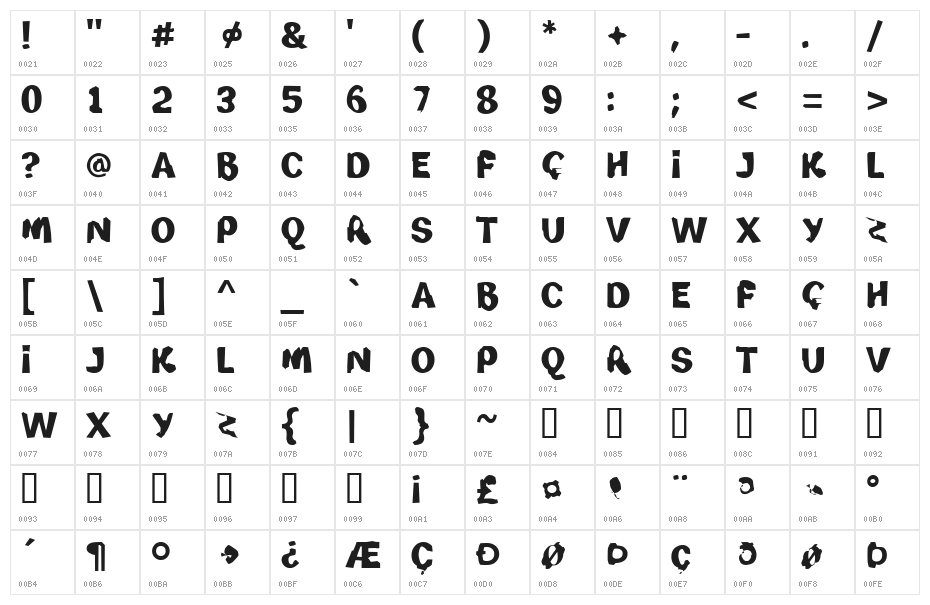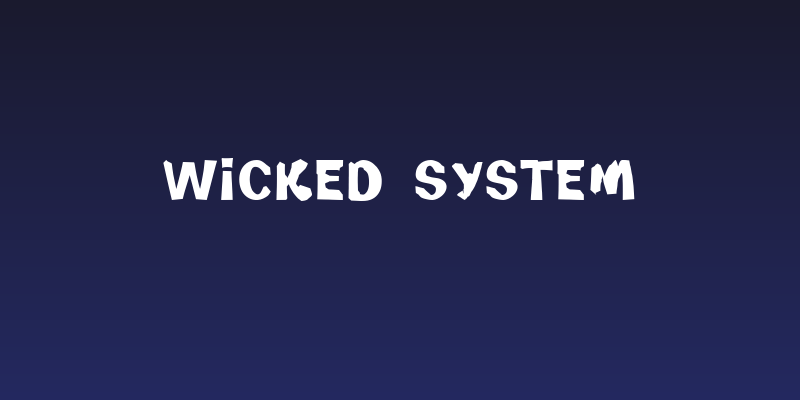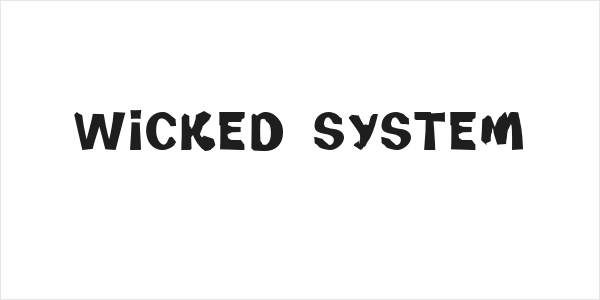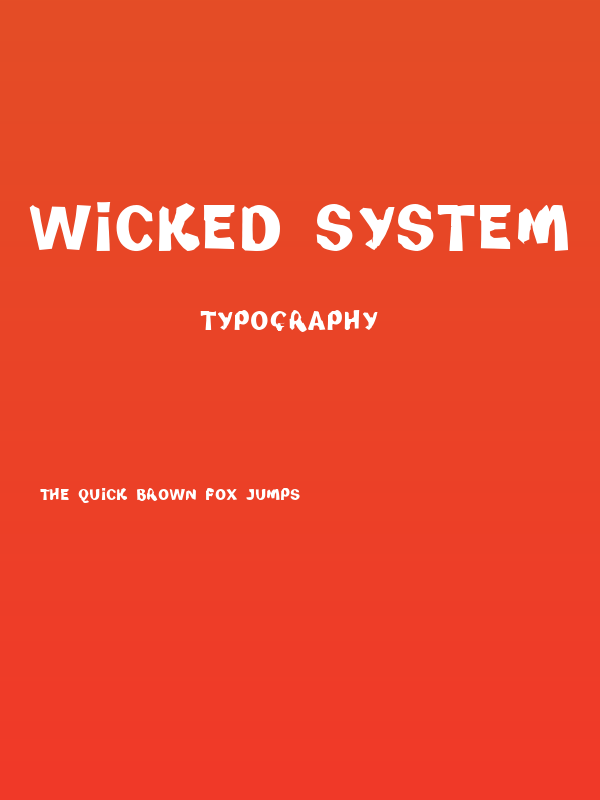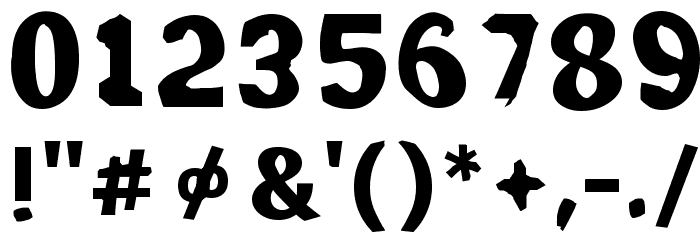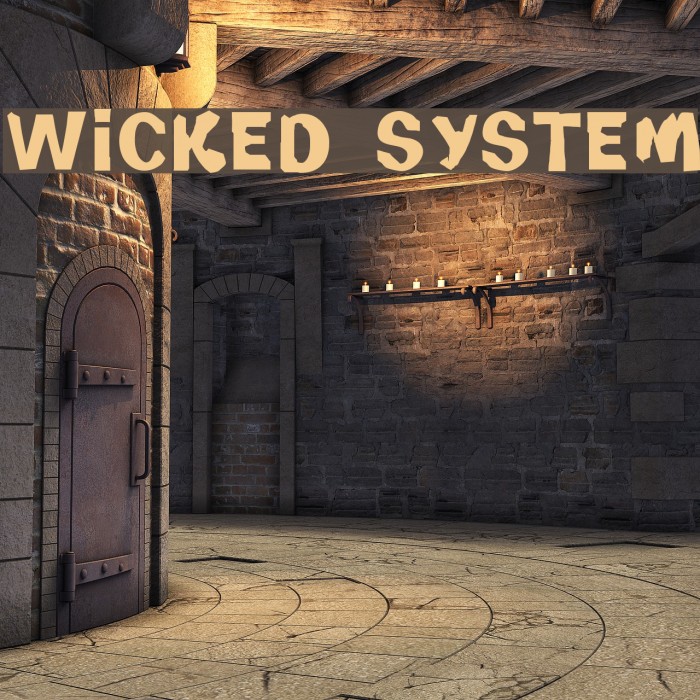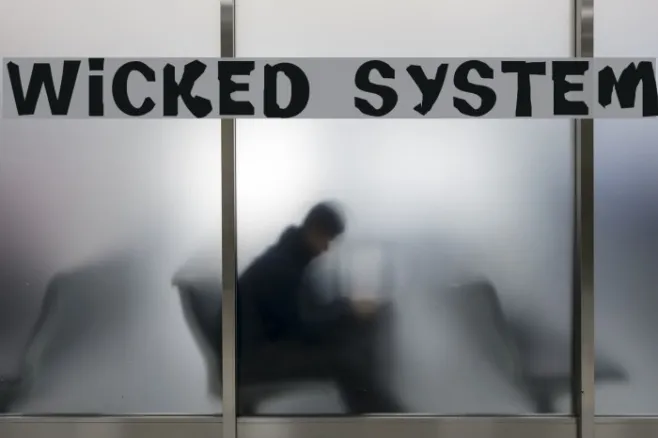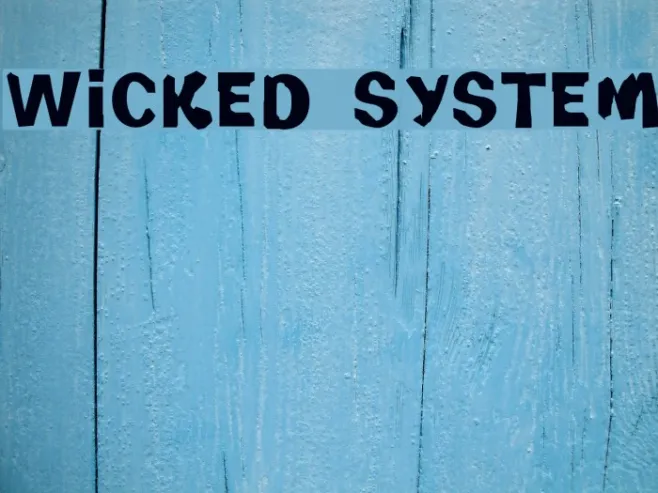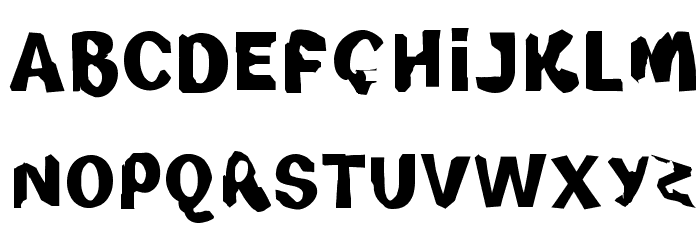
Wicked System Font
Wicked System Description
This font features a bold and edgy design with a distressed, grunge-like appearance. The characters are heavily stylized with uneven edges and irregular shapes, giving them a chaotic and rebellious feel. The uppercase and lowercase letters maintain a consistent style, with bold strokes and a rough texture that adds to the overall rugged aesthetic. Numbers and special characters follow the same design principles, ensuring a cohesive look across all elements. This font is ideal for projects that require a strong, impactful visual statement, such as posters, album covers, or branding for alternative or punk-themed events.
| Proposed Projects | Ideal for posters, album covers, and branding for alternative or punk-themed events. |